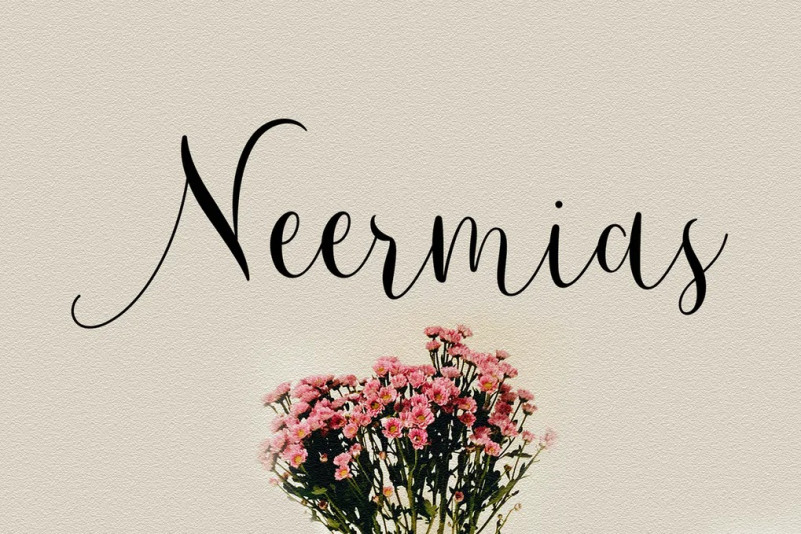
Neermias Font
Introducing our new product Neermias Modern Calligraphy. It is elegant, feminine, modern and friendly. Neermias is perfect for fashion, e-commerce brands, interior brand, or any business.